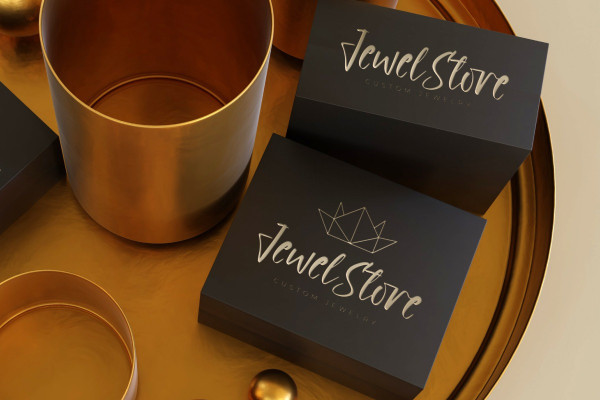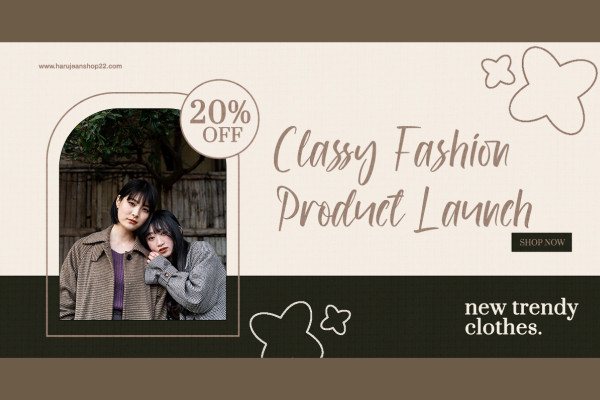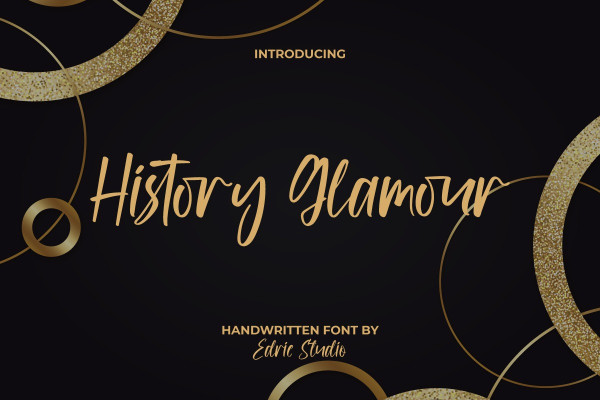
History Glamour Font
History Glamour Font is a classy handwritten font with a splash of luxury that comes with a minimalist look is drawn from the line pull of natural handwriting, making it an elegant look for any design, such as: brand logo, brochure, catalog, cover, envelope, invitation, label, mockup design, packaging design, quote, stationery, title, watermark, website, etc.
History Glamour Font comes with a full set of Uppercase and Lowercase Basic Characters, Number, a large range of Punctuation & Symbol, and also additional Ligatures. It has a stunning characters set, perfectly managed with well spaced and kerning. History Glamour Font will take your project to another level and is perfect for authors, bridal boutique, clothing brand, cosmetic, event organizer, fashion designer, gift, jewelry, printing, publishing, restaurant, spa salon, wedding, writers, and many more.